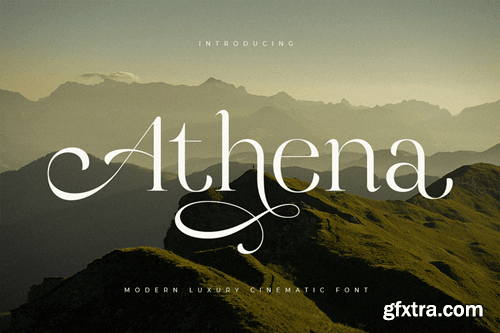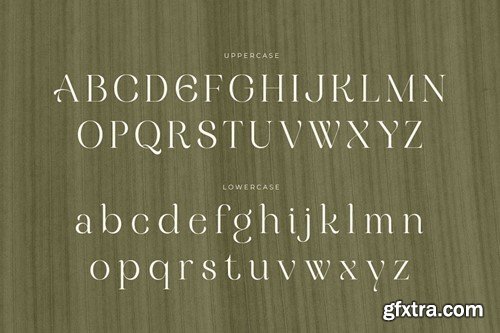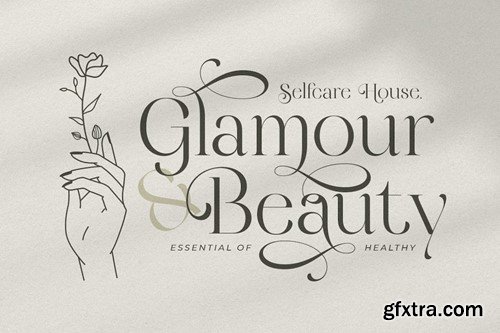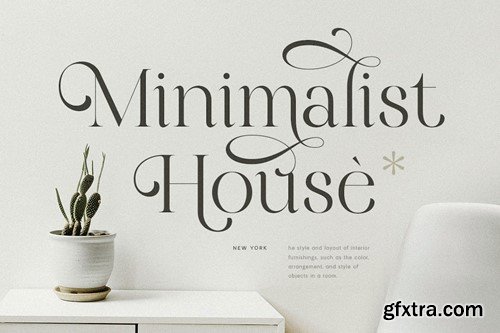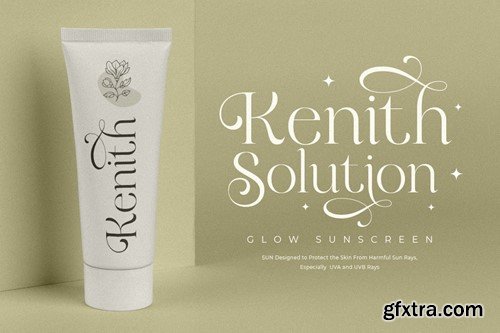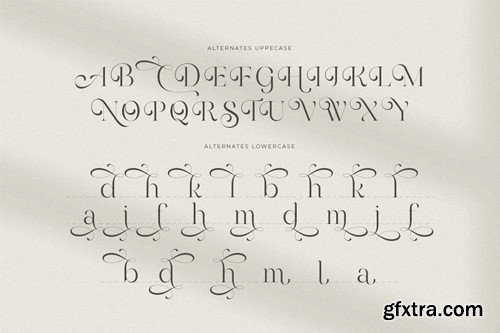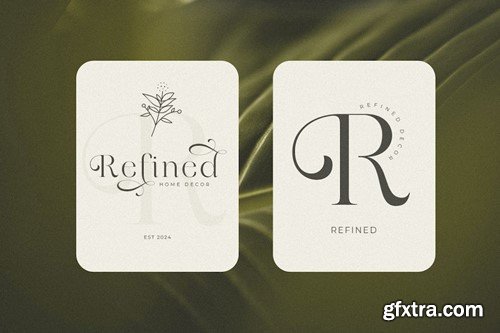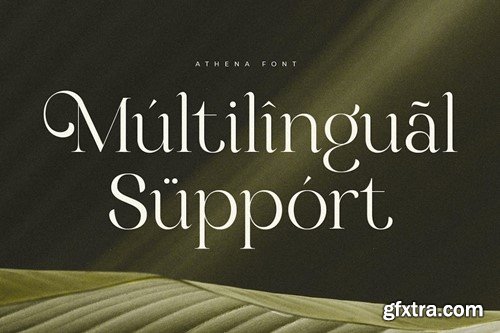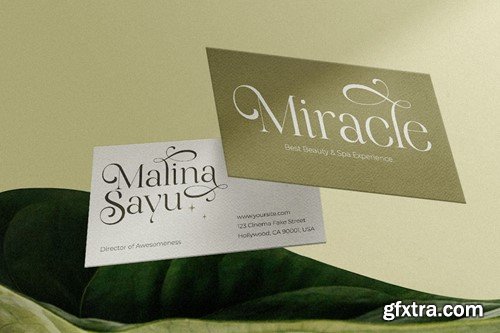
Athena is a modern luxury cinematic font crafted to bring sophistication and elegance to your design projects. Its sleek lines and stylish characters make it perfect for high-end branding, cinematic titles, and luxurious packaging. The design of Athena reflects a commitment to quality and attention to detail, ensuring your projects stand out with a touch of modern elegance. The creation of Athena began with the desire to merge modern aesthetics with cinematic luxury. Inspired by classic beauty and contemporary trends, Athena offers unique alternate characters that add versatility to your designs. Whether you're creating logos, movie titles, or editorial layouts, Athena's luxurious feel and cinematic appeal make it an ideal choice for various design needs. Athena is packed with features to support your creative vision. It includes alternate characters, punctuation, numbers, and symbols, making it versatile and compatible with different platforms and software. With multilingual support and opentype features, Athena is designed to meet the diverse needs of designers around the world. Athena Modern Luxury Cinematic Font Features: Thank you and best of luck with your designs!